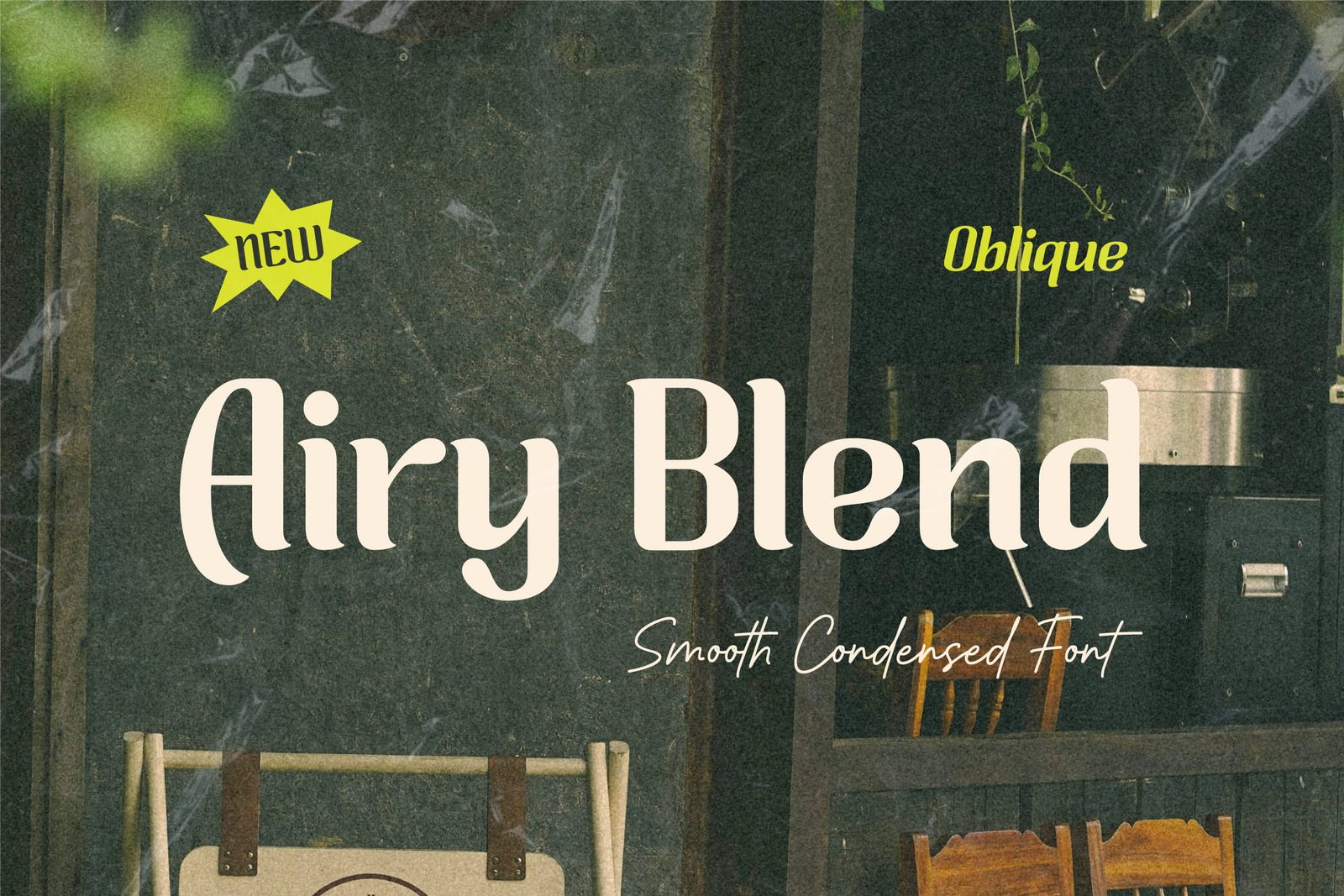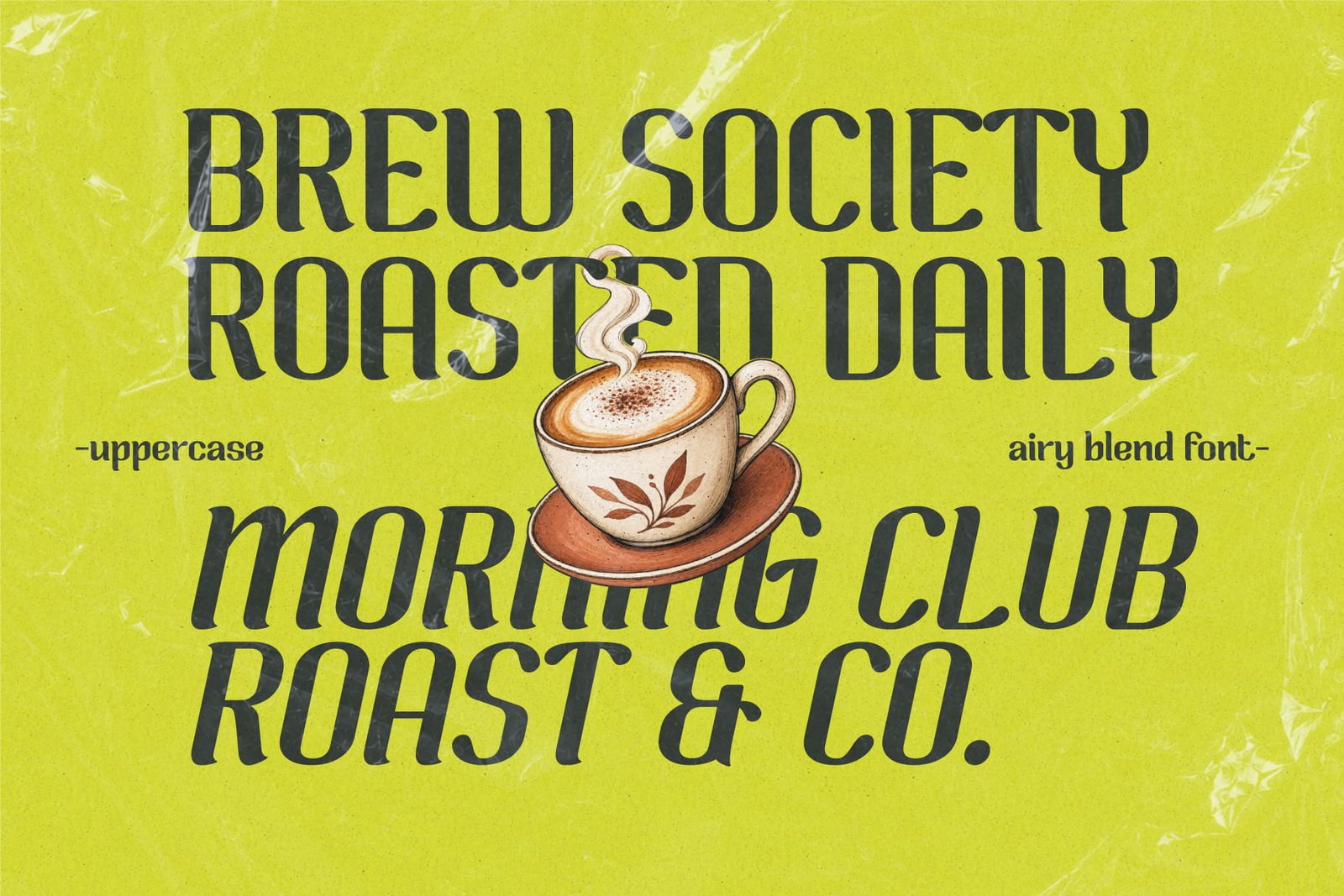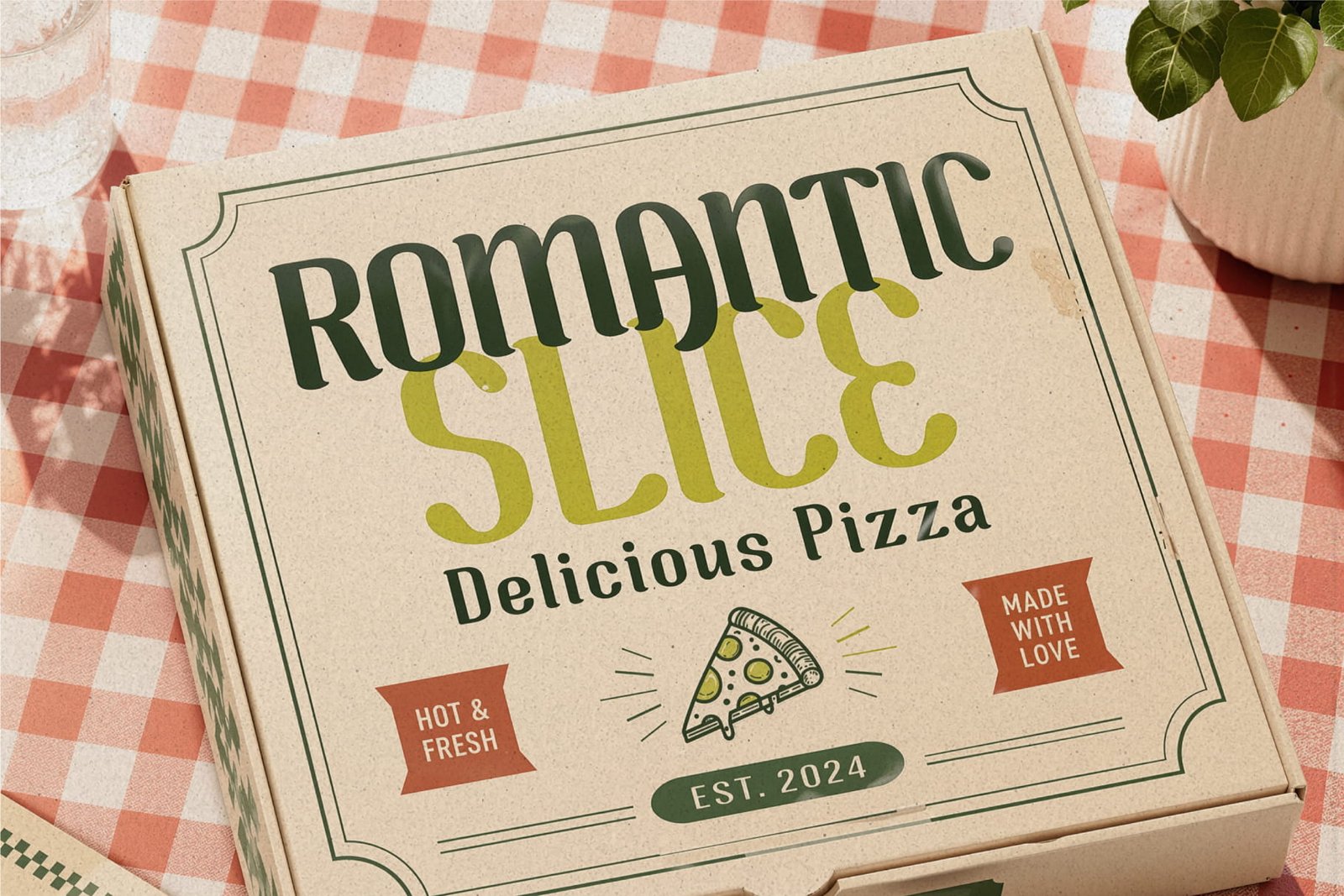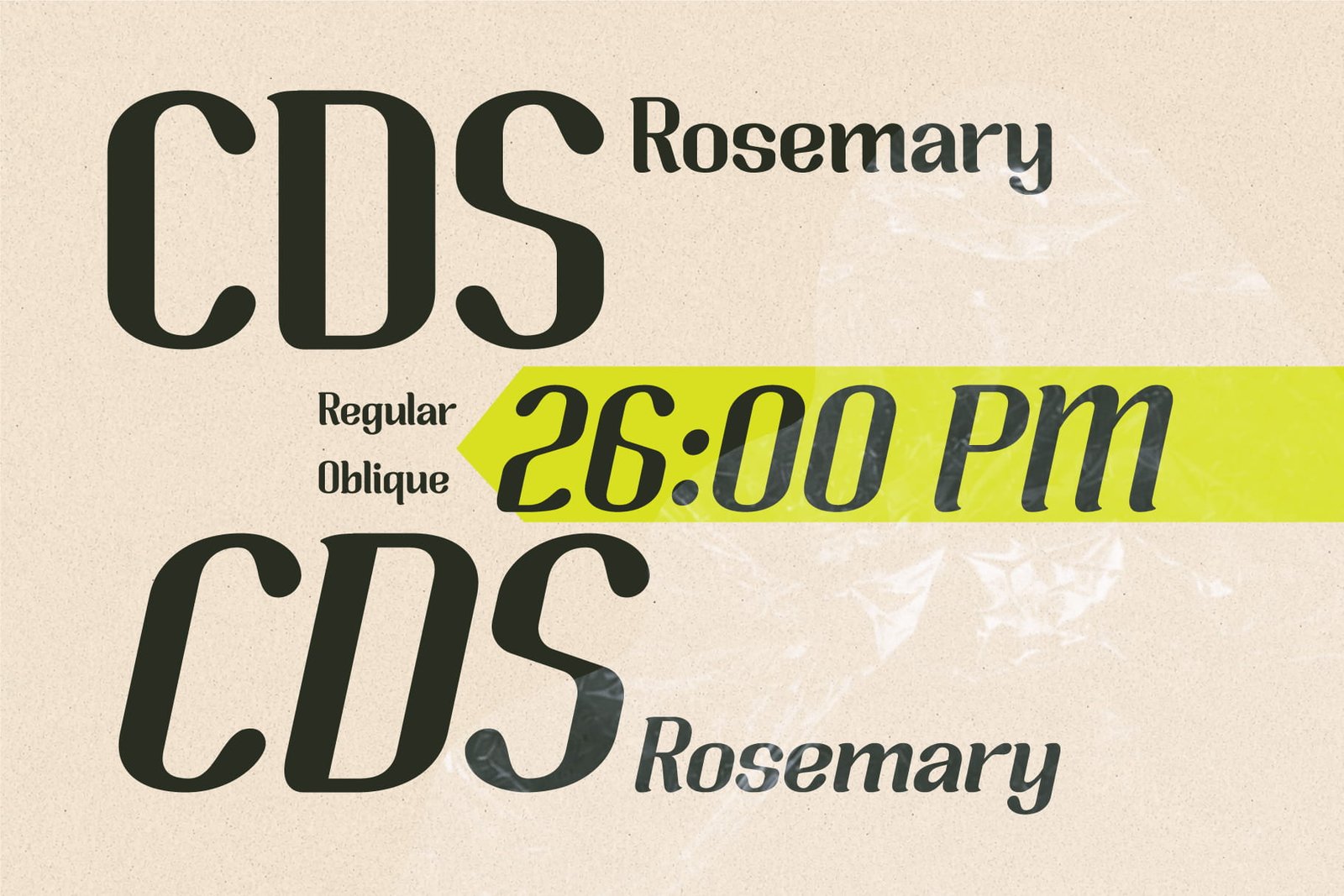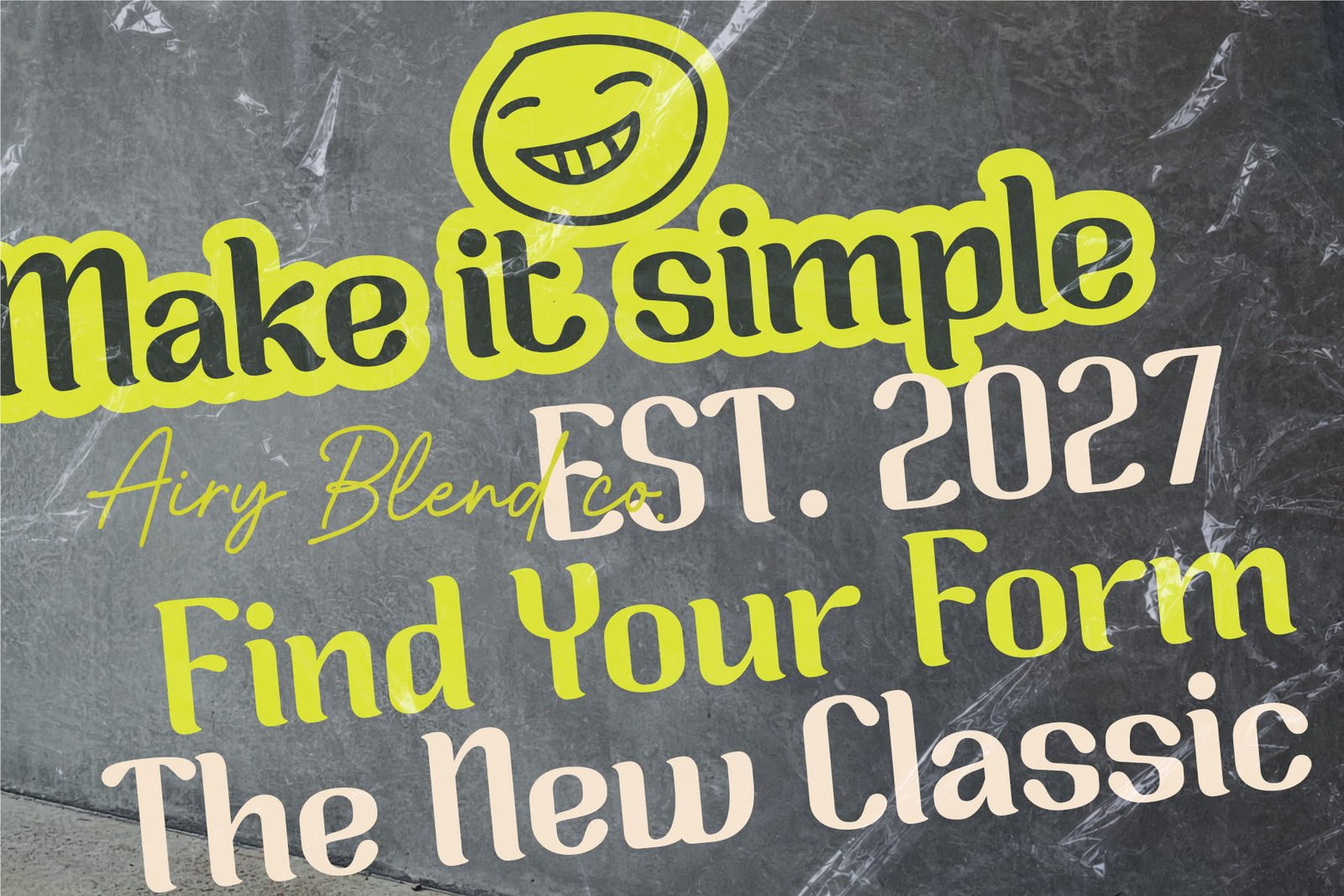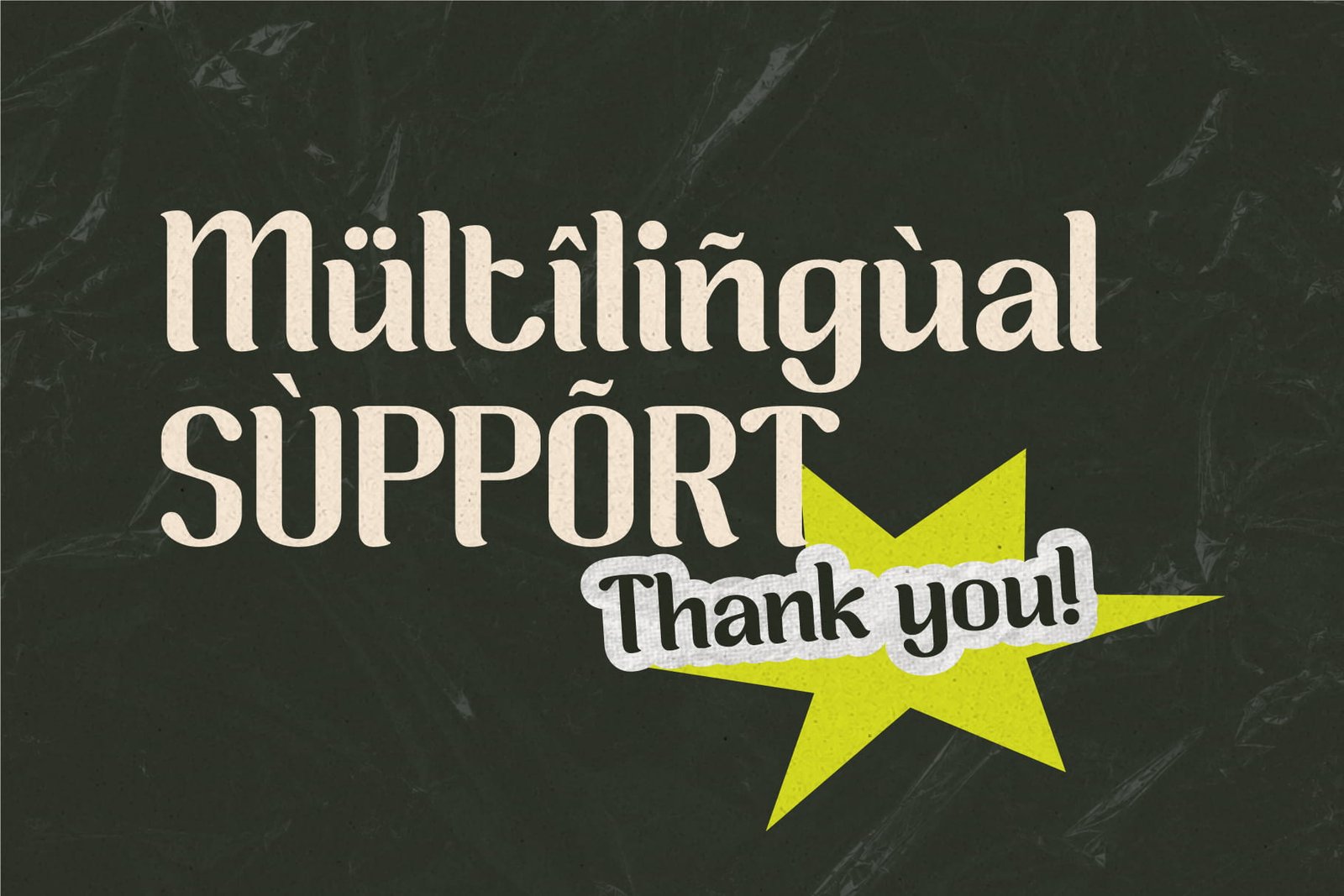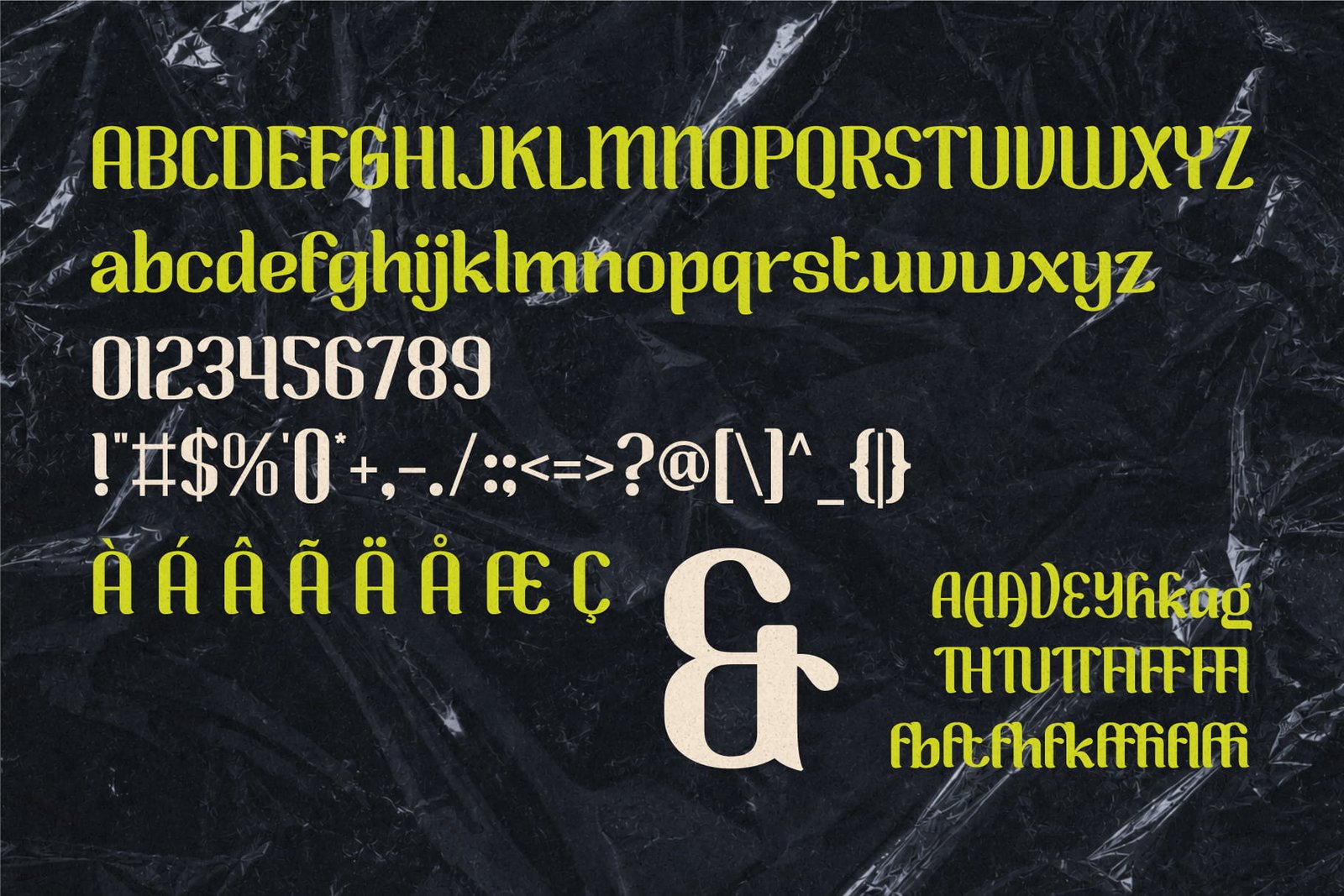
Smooth Condensed Font - Airy Blend
Airy Blend is a stylish condensed display typeface with smooth, refined letterforms and a distinctive vertical character. Its condensed proportions create a strong, space-efficient look, while the elegant Oblique style adds movement and personality to your typography.
Designed to work beautifully across branding and display applications, Airy Blend brings a sophisticated yet contemporary feel to logos, packaging, editorial layouts, posters, café branding, fashion projects, and more.
Features:
• Uppercase & Lowercase
• Regular & Oblique Style
• Ligatures
• Alternates
• Multilingual Support
• Punctuation & Numbers